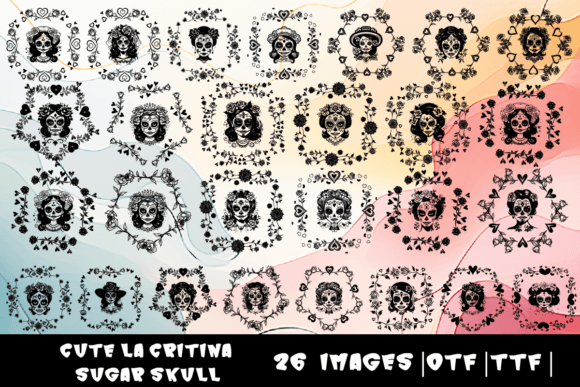
Cute La Catrina Sugar Skull Font: Add a Touch of Whimsy to Your Designs
Are you looking for a unique and playful font to add a touch of elegance to your projects? Look no further than the Cute La Catrina Sugar Skull Font! This charming digital product features a set of 26 characters from A to Z, each adorned with adorable and whimsical sugar skull designs inspired by La Catrina. In this article, we’ll take a closer look at this delightful font and explore its features, benefits, and uses.
What is La Catrina?
La Catrina is a iconic symbol of the Mexican holiday Día de los Muertos (Day of the Dead). She is a skeletal figure dressed in elegant clothing and a hat, often depicted with a smile and a flower crown. La Catrina has become a popular cultural icon, representing the celebration of life and death. The Cute La Catrina Sugar Skull Font takes inspiration from this beloved character, bringing her whimsical charm to your designs.
Features of Cute La Catrina Sugar Skull Font
The Cute La Catrina Sugar Skull Font is a digital product that features:
- 26 characters from A to Z, each with a unique sugar skull design inspired by La Catrina
- Adorable and whimsical designs that add a touch of playful elegance to your projects
This font is perfect for designers, crafters, and anyone looking to add a touch of whimsy to their projects. Whether you’re creating invitations, greeting cards, or social media graphics, the Cute La Catrina Sugar Skull Font is sure to delight.
Benefits of Using Cute La Catrina Sugar Skull Font
So why choose the Cute La Catrina Sugar Skull Font for your projects? Here are just a few benefits:
- Unique and eye-catching designs: The Cute La Catrina Sugar Skull Font features one-of-a-kind designs that will set your projects apart from the crowd.
- Versatile: The font can be used for a wide range of projects, from invitations and greeting cards to social media graphics and more.
- Adds a touch of whimsy: The Cute La Catrina Sugar Skull Font adds a playful and elegant touch to your projects, making them perfect for celebrations and special occasions.
Uses for Cute La Catrina Sugar Skull Font
The Cute La Catrina Sugar Skull Font is perfect for a variety of projects, including:
- Invitations and greeting cards: Add a touch of whimsy to your invitations and greeting cards with this unique font.
- Social media graphics: Use the Cute La Catrina Sugar Skull Font to create eye-catching social media graphics that will stand out from the crowd.
- Crafting projects: This font is perfect for crafters who want to add a personal touch to their projects, such as scrapbooking, journaling, and more.
- Digital art: Use the Cute La Catrina Sugar Skull Font to add a touch of elegance to your digital art projects.
Tips for Using Cute La Catrina Sugar Skull Font
Here are a few tips for using the Cute La Catrina Sugar Skull Font:
- Experiment with different colors: Try pairing the font with different colors to create unique and eye-catching designs.
- Use it sparingly: Use the font sparingly to add a touch of whimsy to your projects, rather than overwhelming the design.
- Pair it with other fonts: Try pairing the Cute La Catrina Sugar Skull Font with other fonts to create interesting and dynamic designs.
The Cute La Catrina Sugar Skull Font is a unique and playful digital product that adds a touch of whimsy to your designs. With its adorable sugar skull designs inspired by La Catrina, this font is perfect for designers, crafters, and anyone looking to add a touch of elegance to their projects. Whether you’re creating invitations, social media graphics, or digital art, the Cute La Catrina Sugar Skull Font is sure to delight.
Introducing Cute La Catrina Sugar Skull Dingbats Fonts!
We’re excited to introduce the Cute La Catrina Sugar Skull Dingbats Fonts, a charming set of 26 characters from A to Z, each adorned with adorable and whimsical sugar skull designs inspired by La Catrina. This digital product features:
- Adorable and whimsical designs that add a touch of playful elegance to your projects
Get ready to add a touch of whimsy to your designs with the Cute La Catrina Sugar Skull Dingbats Fonts!